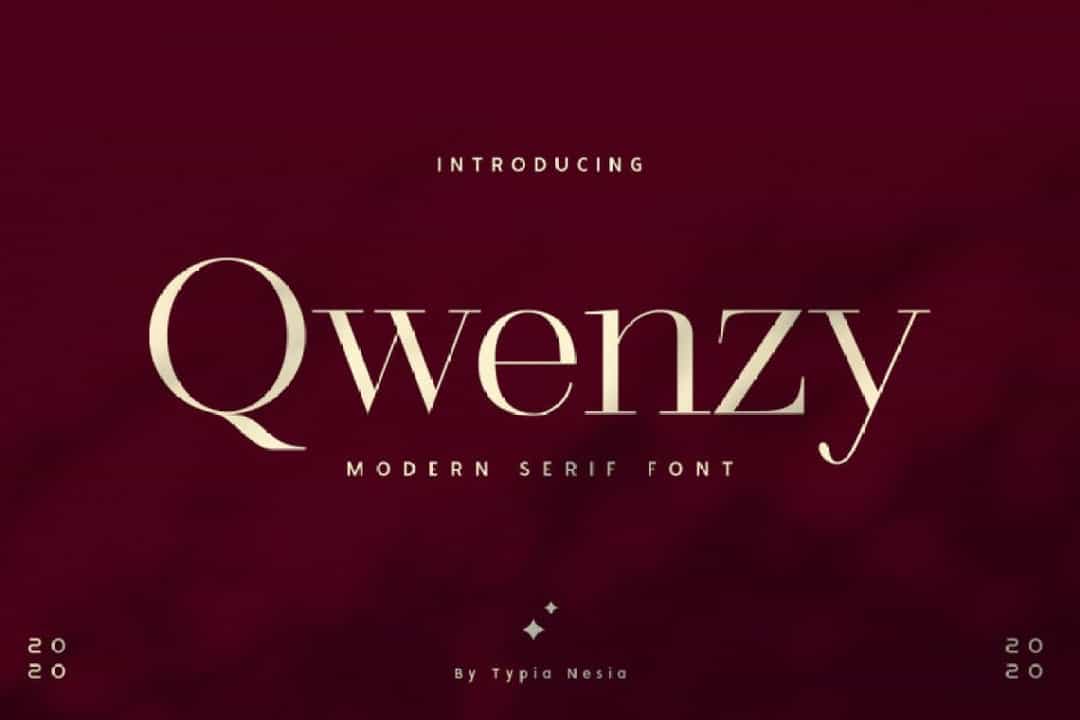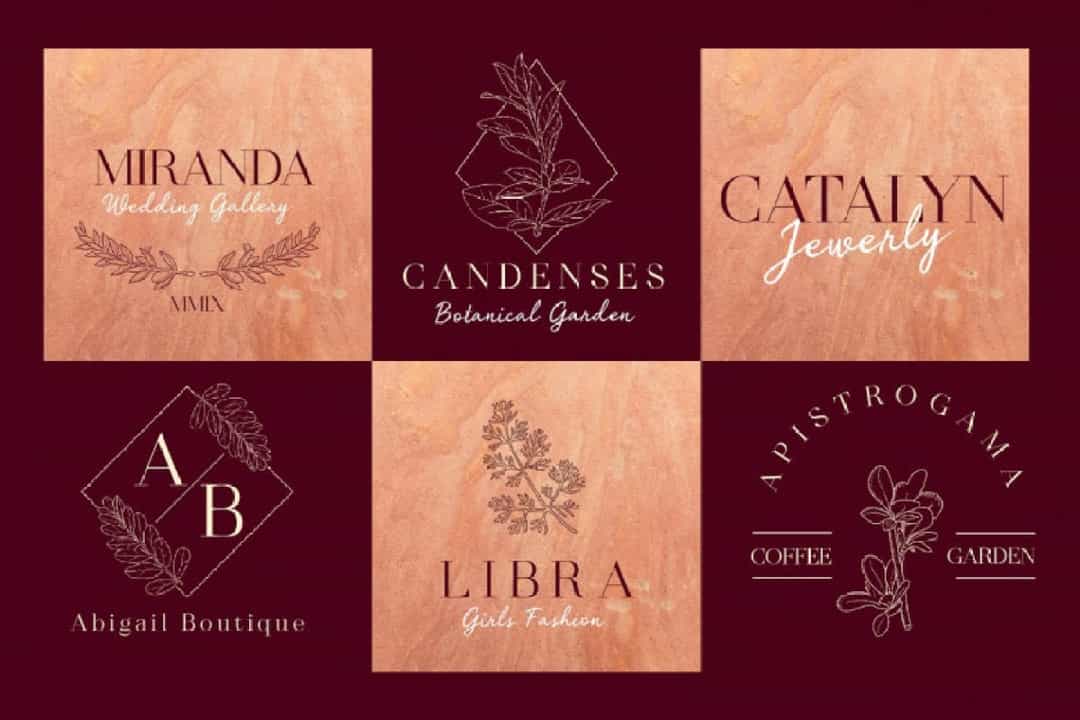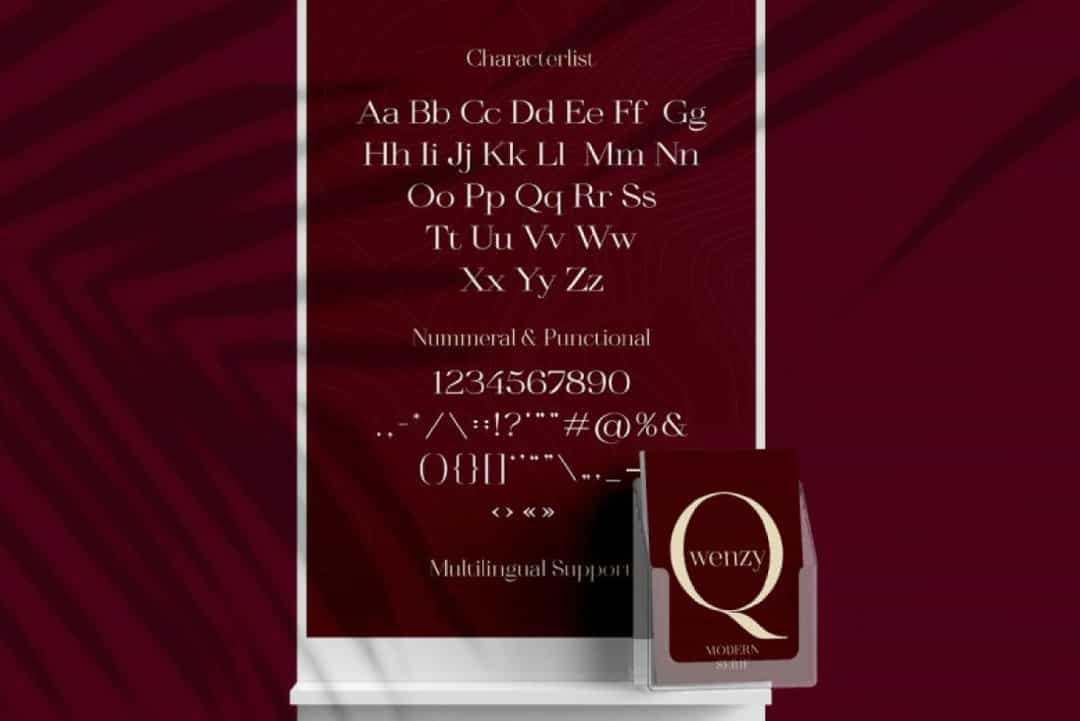
Discover Qwenzy Elegant Serif Font, part of the Serif Slab Serif Basic collection—a versatile and unique font perfect for adding a personal touch to your projects. Download it for free and enjoy crafting designs with style, from invitations to social media posts. This font is available exclusively for personal use, giving you the freedom to create without limits. Unlock your creativity with Qwenzy Elegant Serif Font today!
The Qwenzy Elegant Serif Font can be used in luxury logos and branding, elegant editorial design magazine fashion, fashionable blog design, stationery designs for stationeries or blogs, contemporary advertising designs for invitation cards art quote home decor invitation cards titles for books/covers special events and special occasions etc.